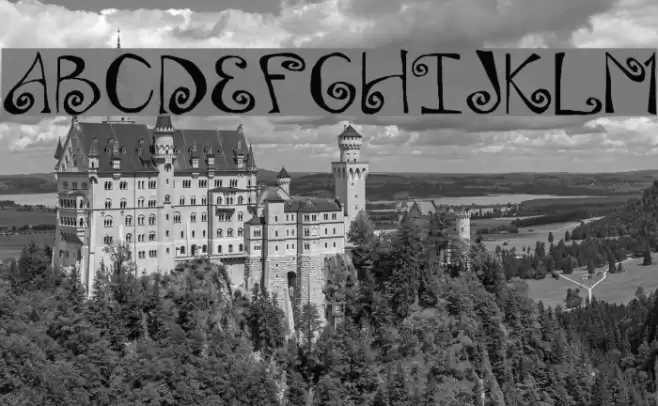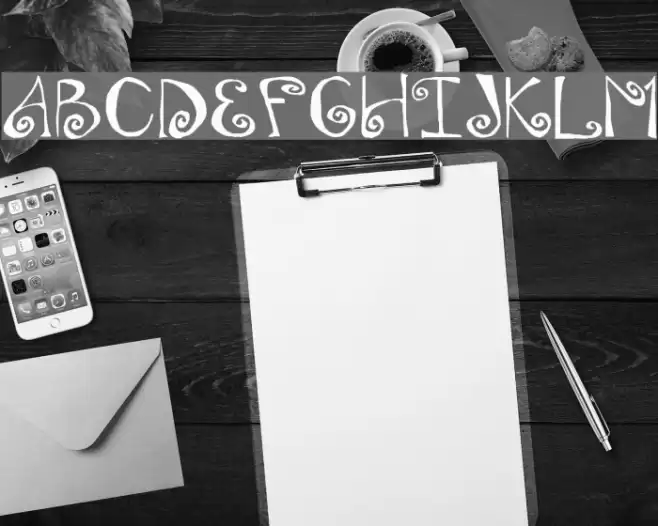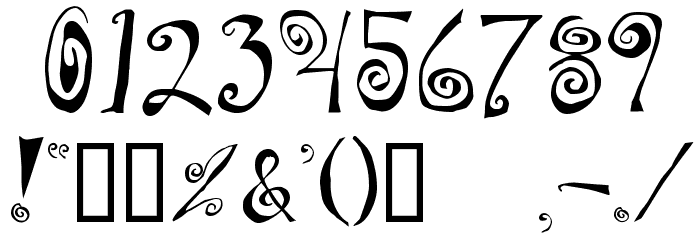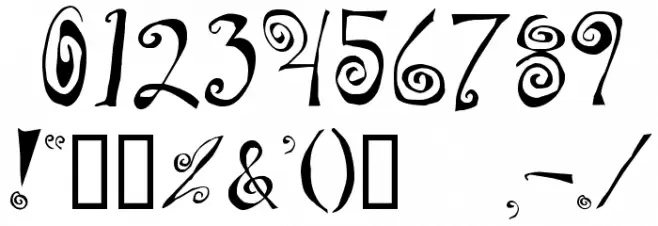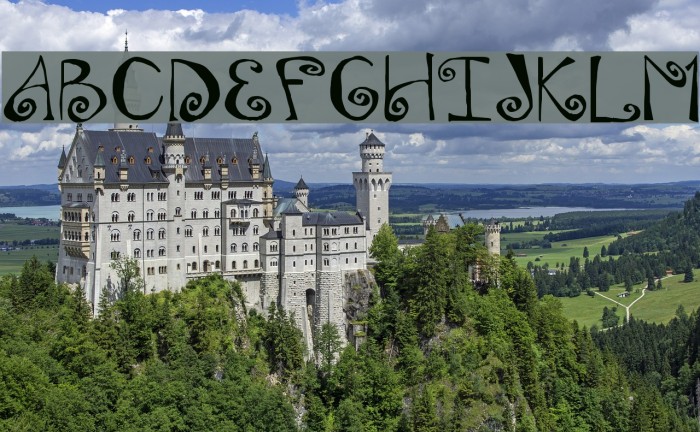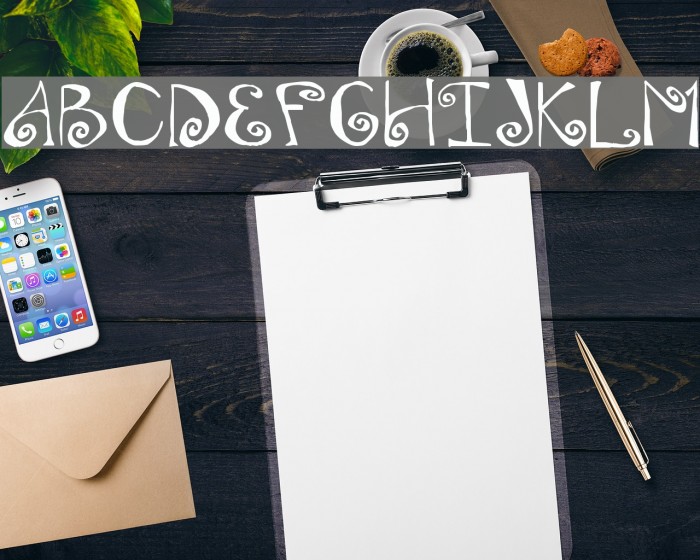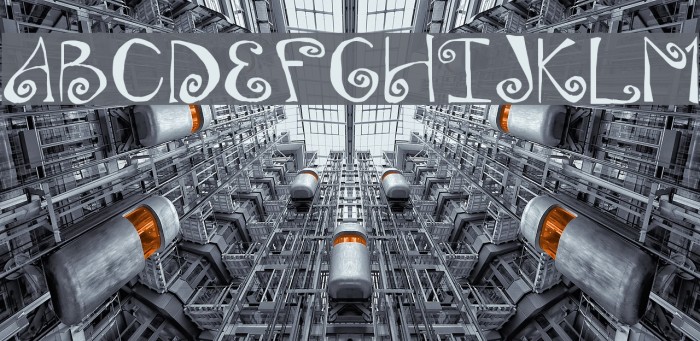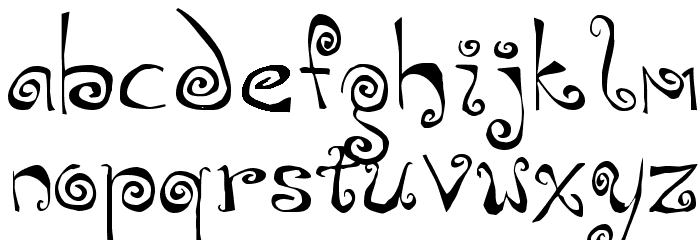
Swirly Font
Swirly Description
This font features a whimsical and playful design with swirling elements integrated into each character. The uppercase and lowercase letters exhibit a unique, artistic flair, with exaggerated curves and loops that create a sense of movement and fun. The numbers and special characters maintain this playful style, making the font suitable for creative and informal applications. Its decorative nature makes it stand out, adding a touch of personality and charm to any project.
A whimsical and playful font with swirling, decorative elements from Handwritten fonts.
- Proposed Projects: Ideal for children's books, party invitations, greeting cards, and playful branding projects.
- Use Case: Headlines, Logos, Invitations